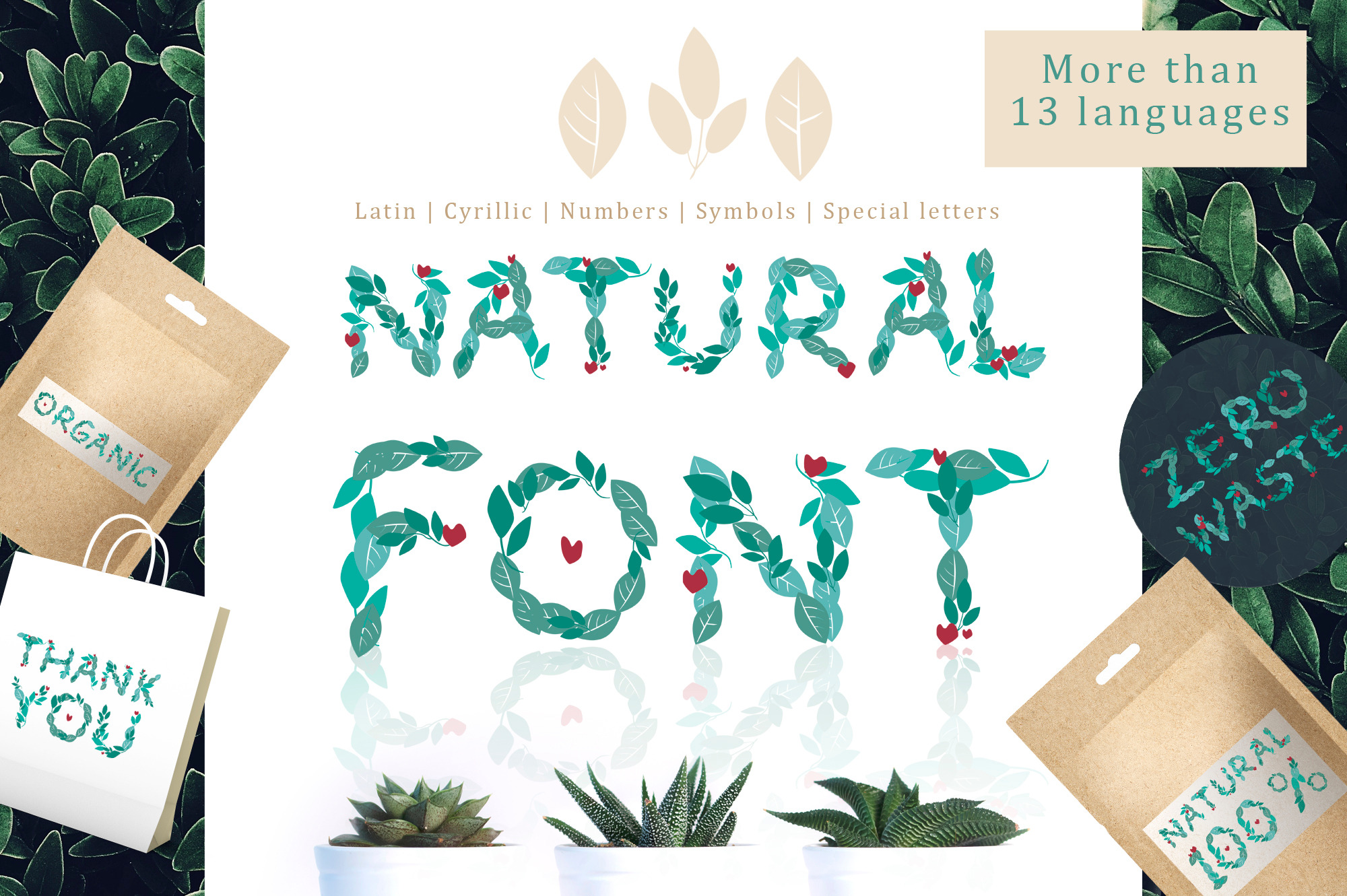
Natural Font - Vector alphabet
The Natural Font is designed specifically to support people who are worried about the environmental situation and nature. I think about eco too, so it was nice to create a product for you.
The Natural Font is made of natural elements, so it is suitable for the design of eco products, natural cosmetics, organic food, clothing, and decor of handmade stores.The set is suitable for English and European languages, moreover, Cyrillic is available - in total more than 13 languages.